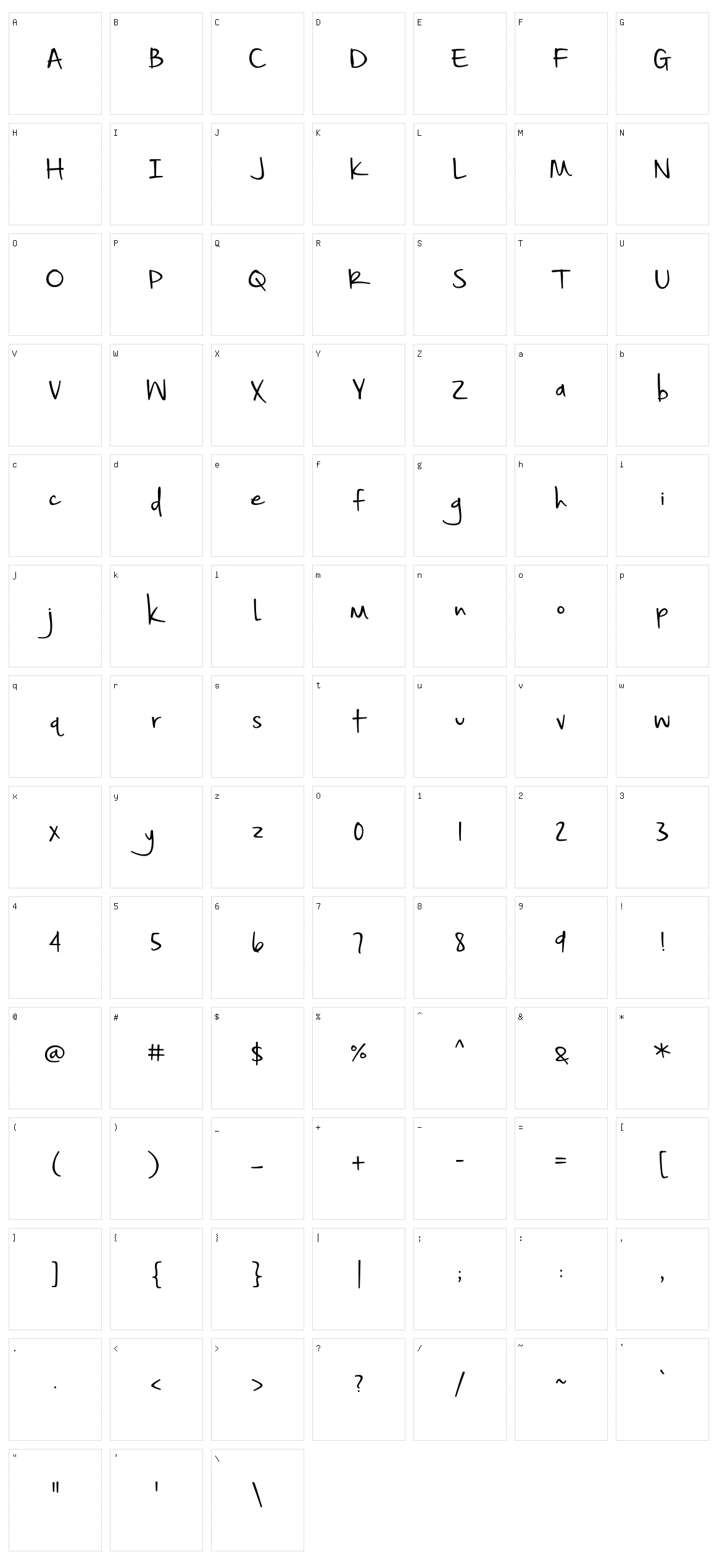
The free font Small Town Skyline is carefully designed by Brittney Murphy Design, showcasing a thoughtful balance of creativity and usability and falls under the Script font style. When you download the ZIP file, it contains only 37.98 KB of font files, making it lightweight and quick to download. Please review the license details below to understand permitted usage and distribution rights. If license information is not available, we recommend using this font for personal projects only or contacting the author directly for commercial usage permissions.